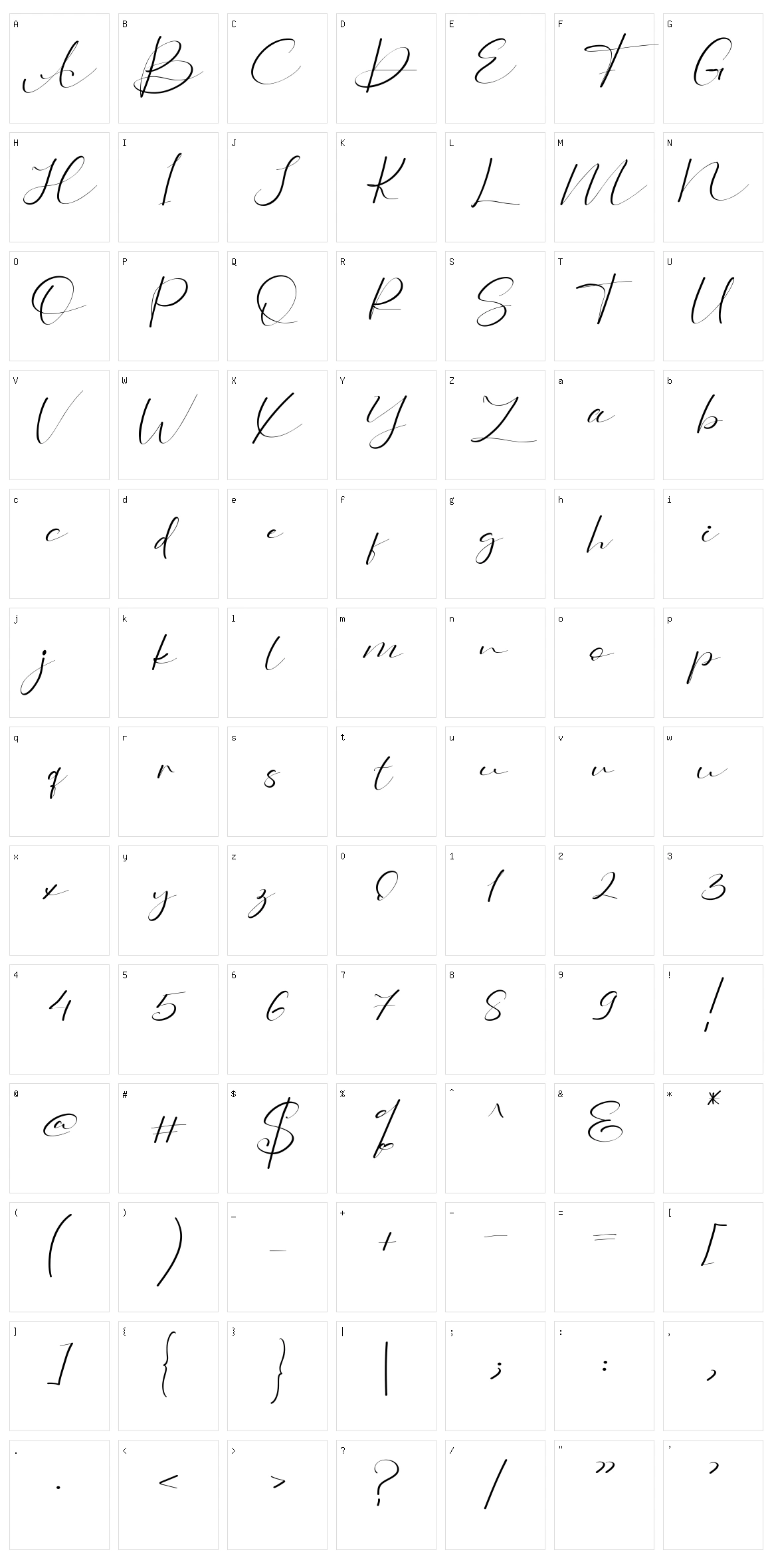
The free font Pristine is carefully designed by Fonteca.com, showcasing a thoughtful balance of creativity and usability and falls under the Script font style. When you download the ZIP file, it contains only 20.09 KB of font files, making it lightweight and quick to download. Please review the license details below to understand permitted usage and distribution rights. If license information is not available, we recommend using this font for personal projects only or contacting the author directly for commercial usage permissions.